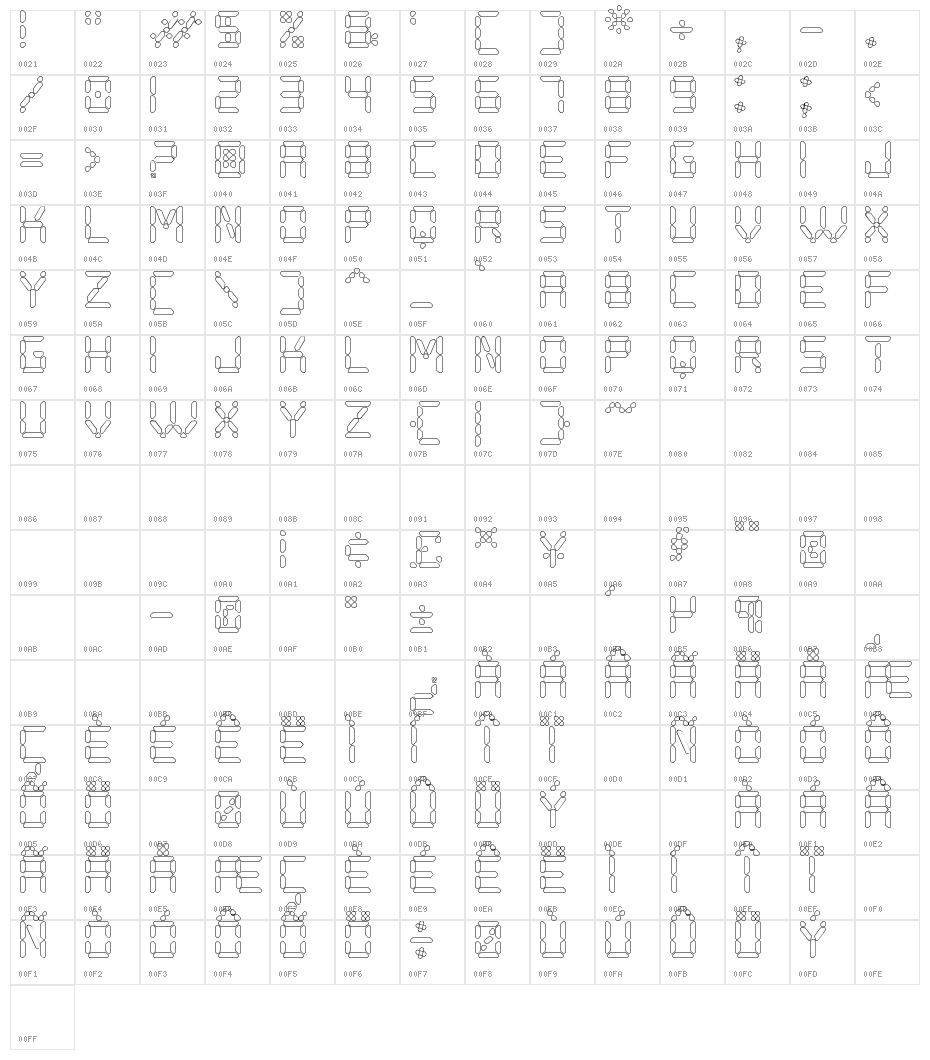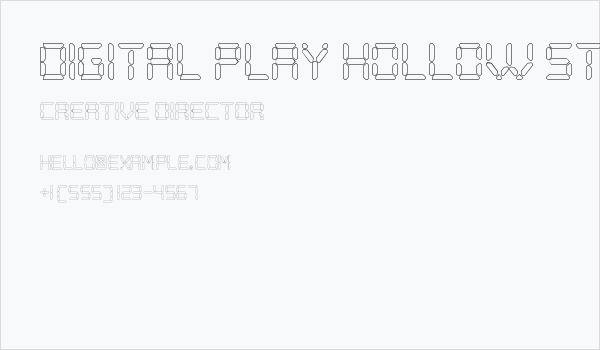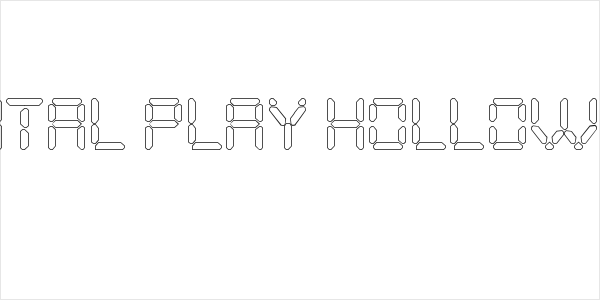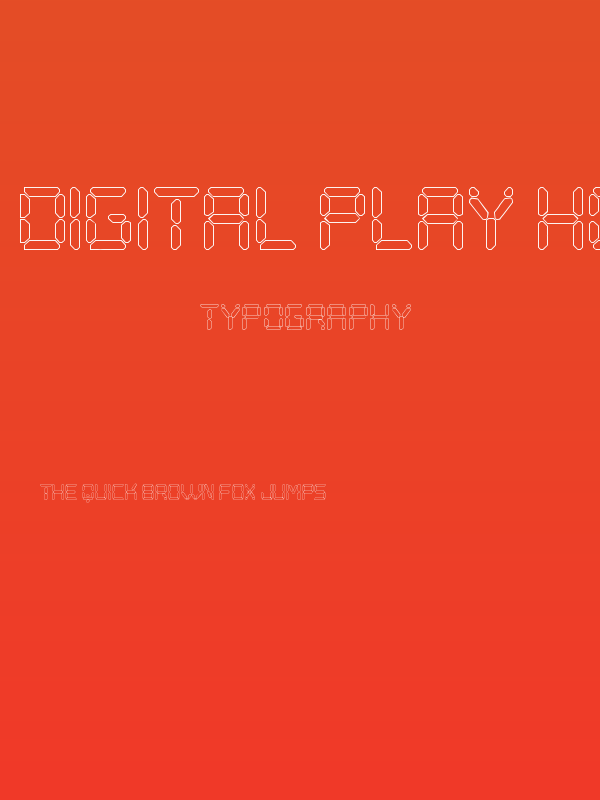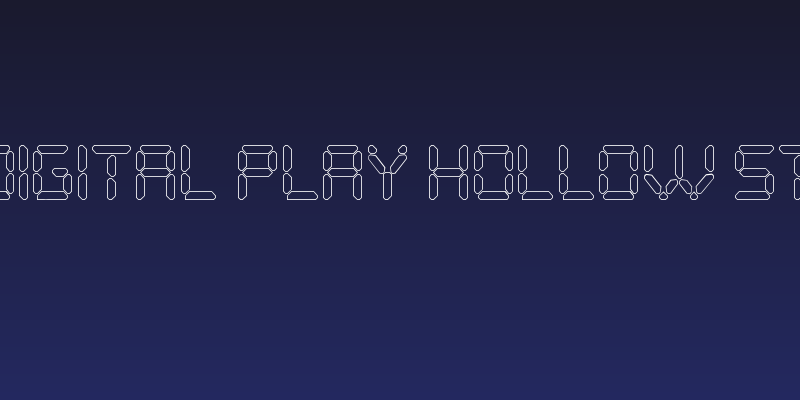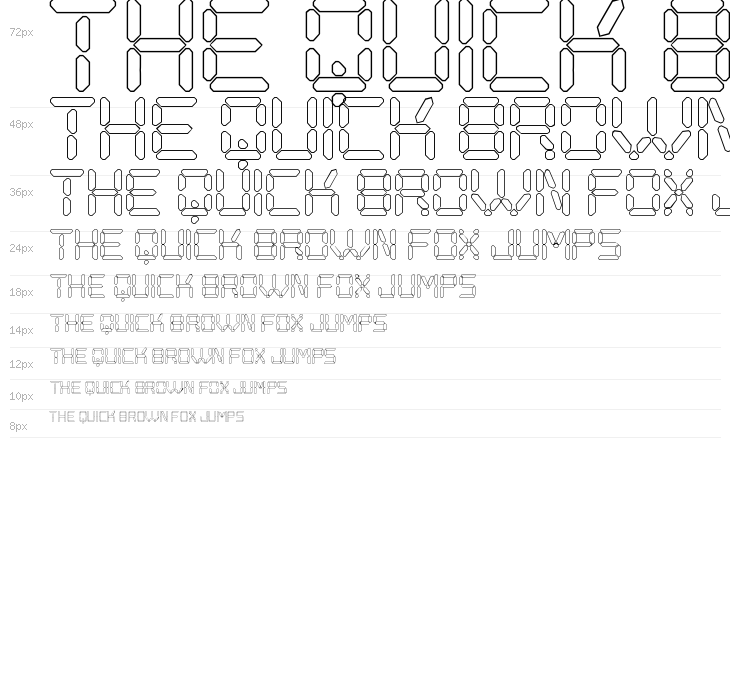
Digital Play Hollow St Font
Digital Play Hollow St Description
This font features a digital-inspired, hollow design that mimics the appearance of segmented LED displays. Each character is constructed with a series of geometric shapes, primarily rectangles and circles, creating a futuristic and technical aesthetic. The hollow nature of the characters gives them a lightweight and airy feel, while the structured form maintains clarity and readability. This font is ideal for projects that require a modern, tech-savvy look, such as digital interfaces, tech branding, or futuristic-themed designs. The consistent use of geometric shapes across all characters ensures a cohesive visual style.
| Proposed Projects | Ideal for digital interfaces, tech branding, futuristic-themed designs, and electronic displays. |